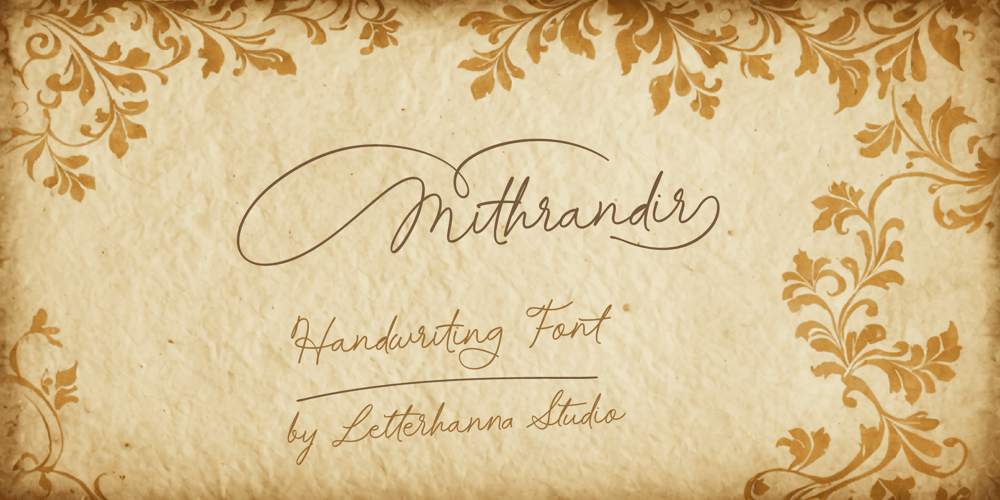
Mithrandir Font Family was designed by Rinaldo Hasibuan and published by Letterhanna Studio. Mithrandir contains 1 styles and family package options. Introducing Mithrandir, our new elegant handwriting script font.Crafted with elegance in mind, Mithrandir boasts a timeless script style that elevates your words to new heights. This versatile font isn’t just beautiful, it’s packed with features to empower your creativity.Unleash your inner artist with a wealth of stylistic alternates, swashes, and ligatures. Mithrandir allows you to effortlessly add a touch of flair and personality to your writing, ensuring your work stands out from the crowd